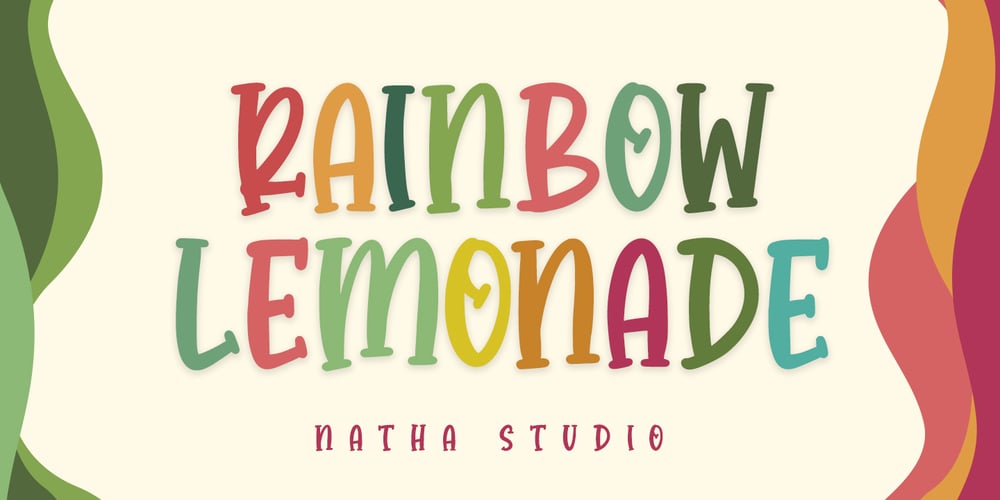
Rainbow Lemonade Font Family was designed by Donis Miftahudin and published by Nathatype. Rainbow Lemonade contains 1 styles and family package options. Rainbow Lemonade is a beautiful handwritten font. It brings an attractive typeface. Made for any professional projects. The font is suitable for any project like logo, t-shirt printing, wedding invitations, and greeting cards to social media quotes, branding, and more! Outstanding in a wide range of contexts.Featured : Standard Ligatures Stylistic Sets Multilingual Support PUA Encoded Numerals and Punctuation